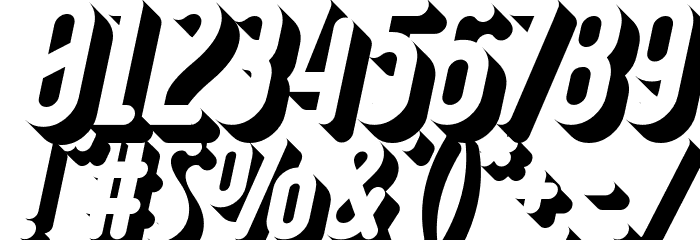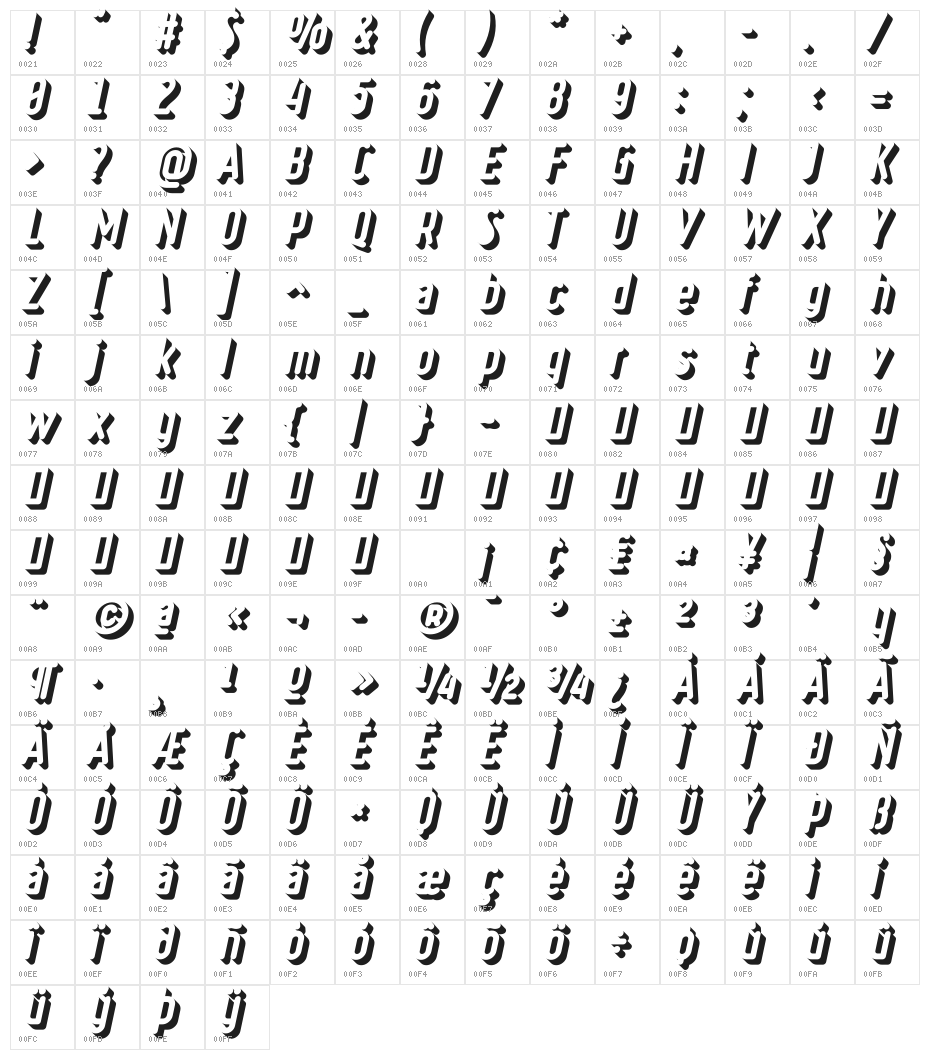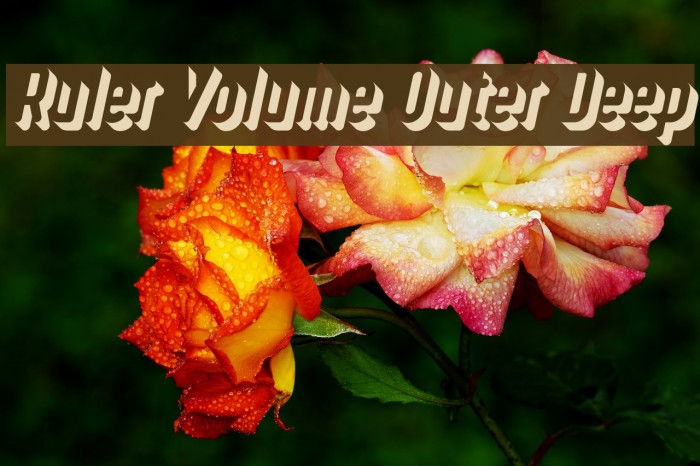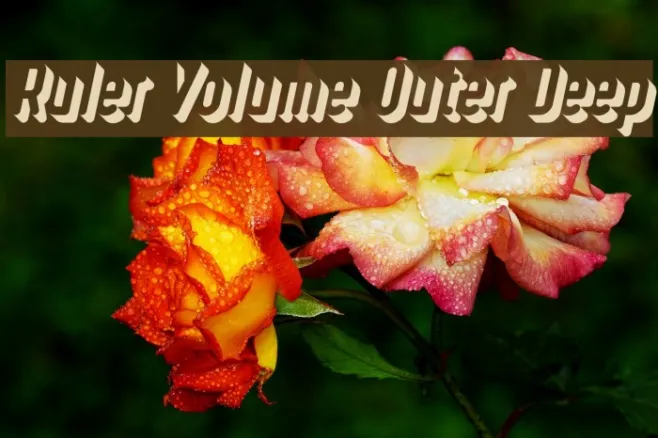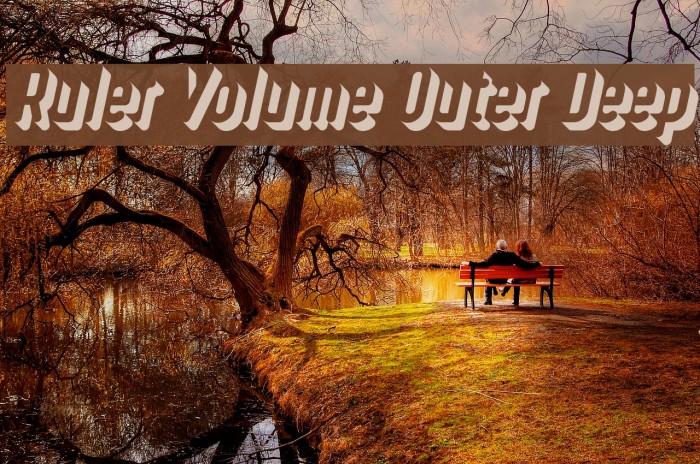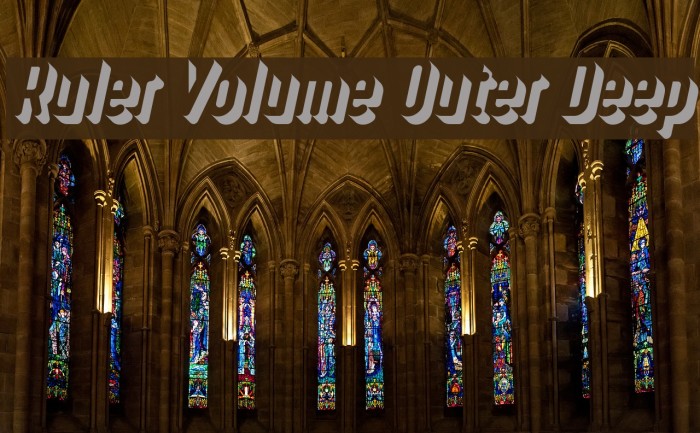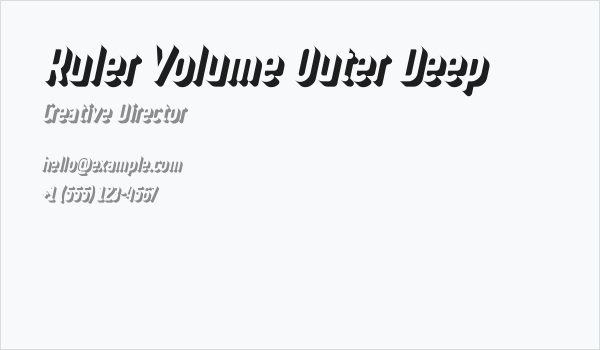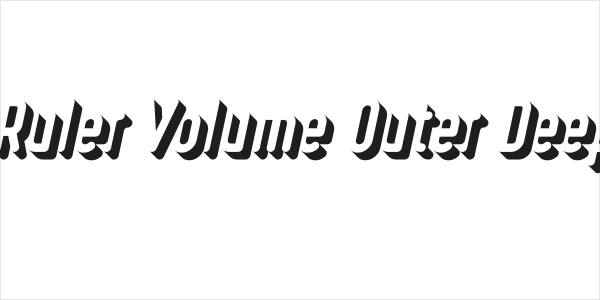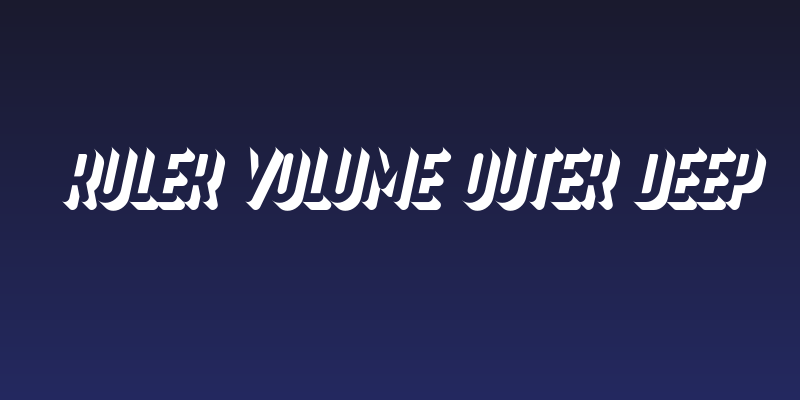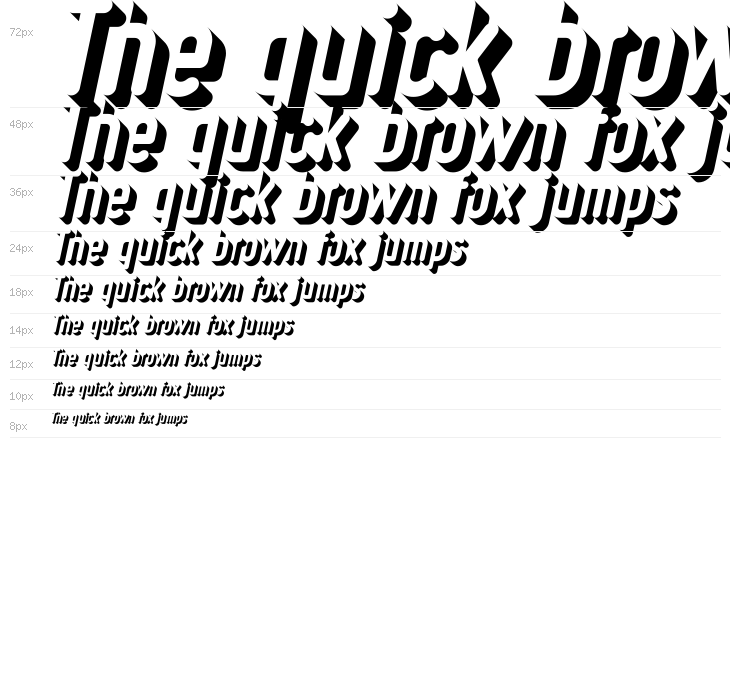
Ruler Volume Outer Deep Font
Ruler Volume Outer Deep Description
This font features a bold and dynamic 3D effect, with each character casting a shadow that adds depth and dimension. The letters are slanted, giving a sense of motion and energy. The strokes are thick and consistent, providing a strong visual impact. The uppercase and lowercase letters maintain a cohesive style, while the numerals and special characters are designed to match the overall aesthetic. This font is ideal for creating eye-catching headlines and designs that require a bold statement.
| Proposed Projects | Ideal for posters, logos, and branding materials that require a strong, impactful presence. |